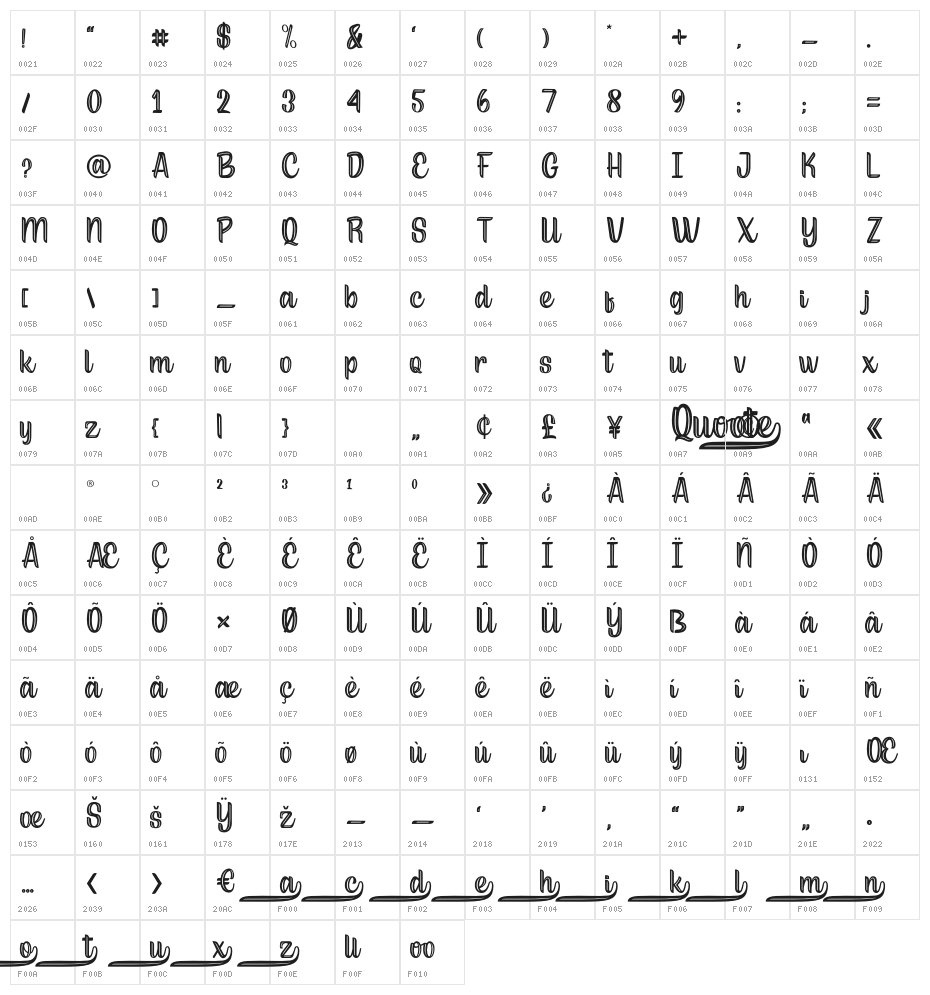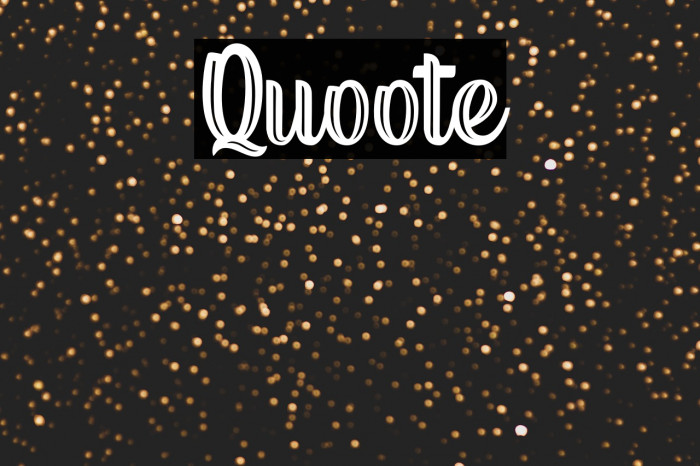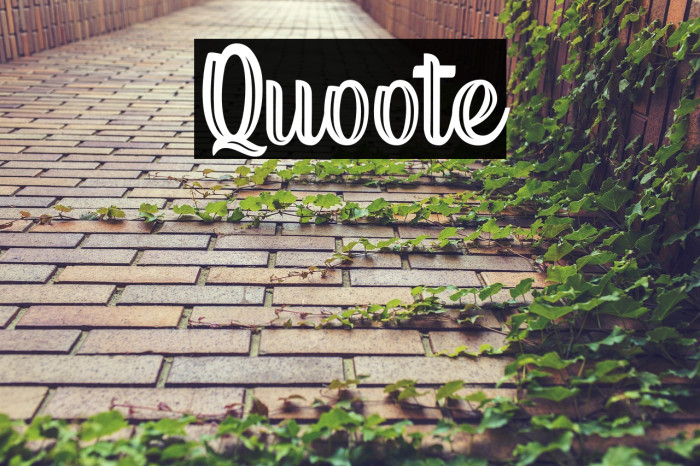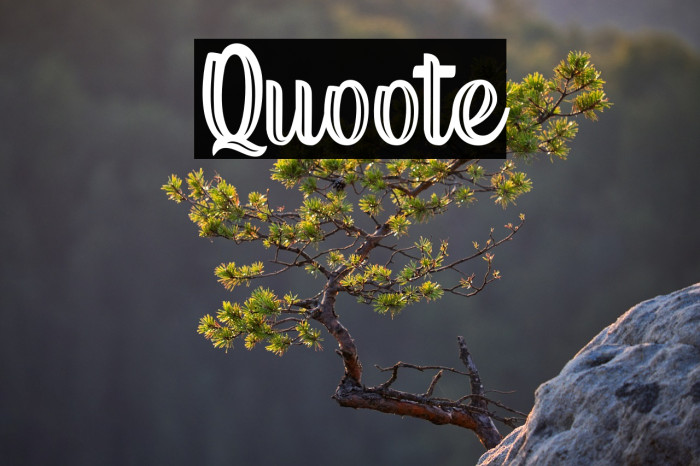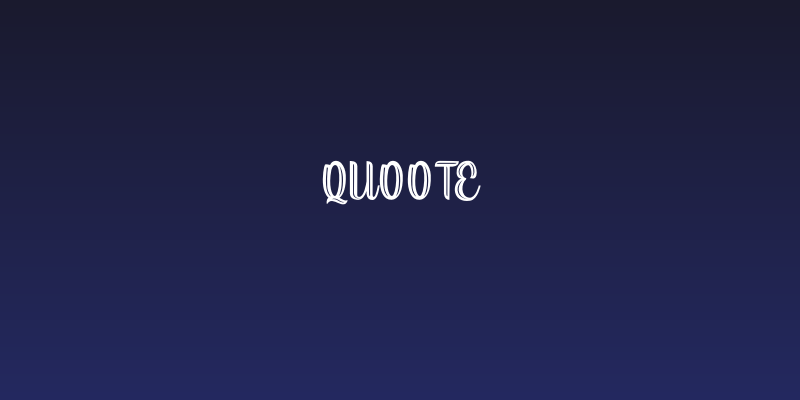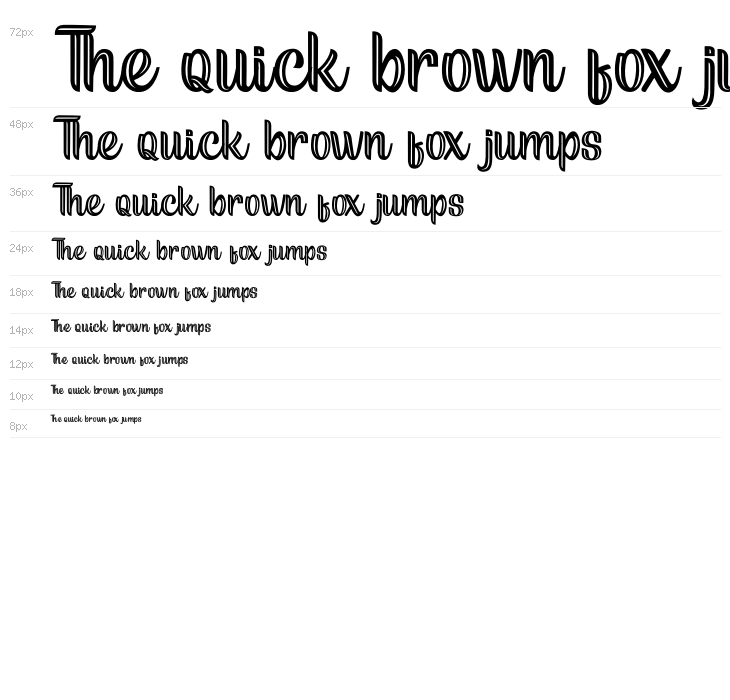
Quoote Font
Quoote Description
This font features a playful and bold design with a hand-drawn aesthetic. The characters are outlined, giving them a unique, hollow appearance that adds depth and dimension. The uppercase letters are tall and slightly narrow, while the lowercase letters maintain a consistent style with a touch of whimsy. The numbers are bold and easy to read, complementing the overall style. Special characters are creatively designed, maintaining the font's playful and artistic vibe. This font is perfect for projects that require a fun and engaging look.
| Overall Style | Playful, Artistic |
| Proposed Projects | Ideal for children's books, playful branding, posters, and creative invitations. |